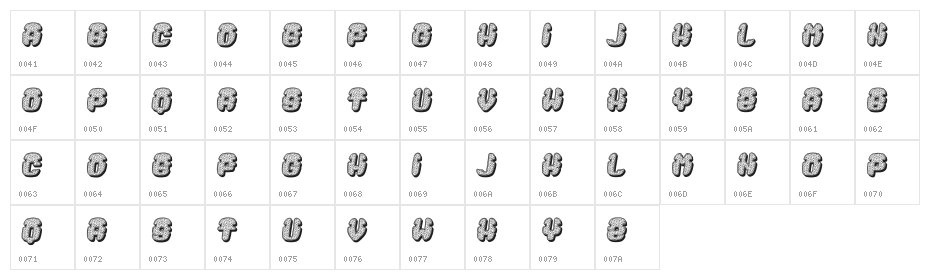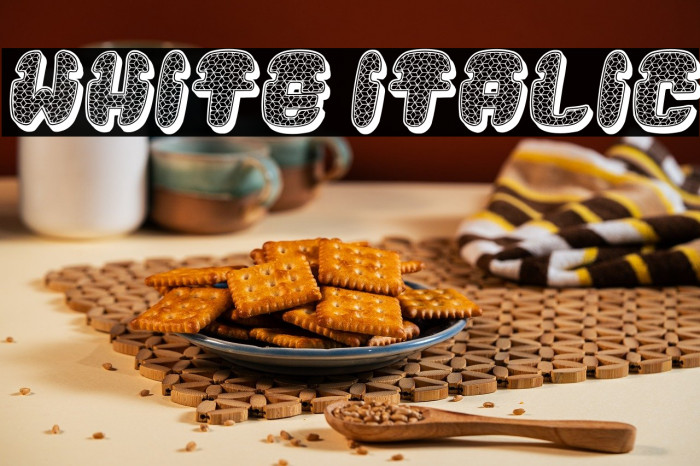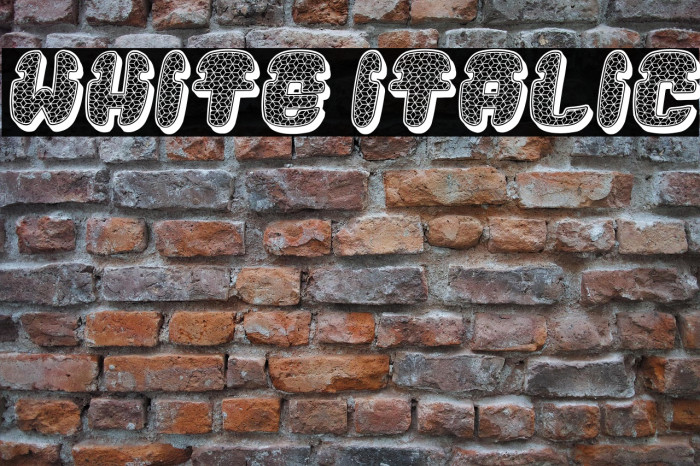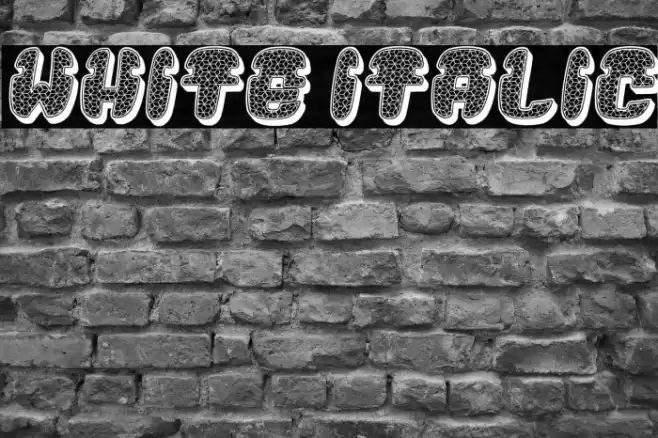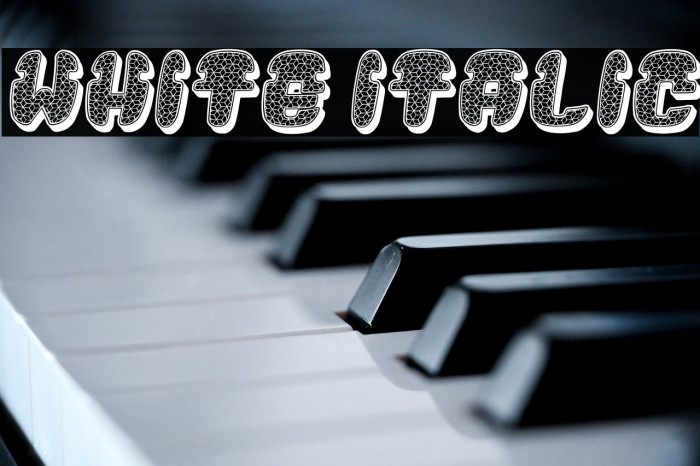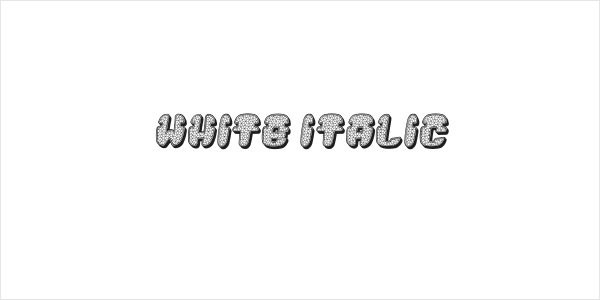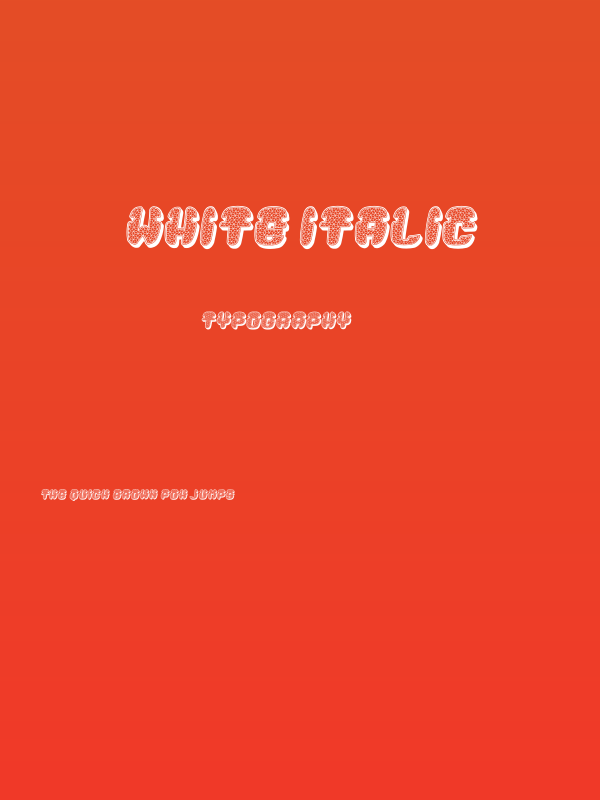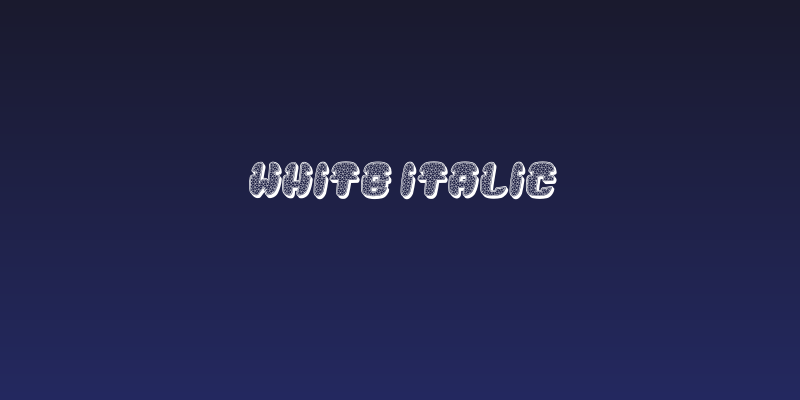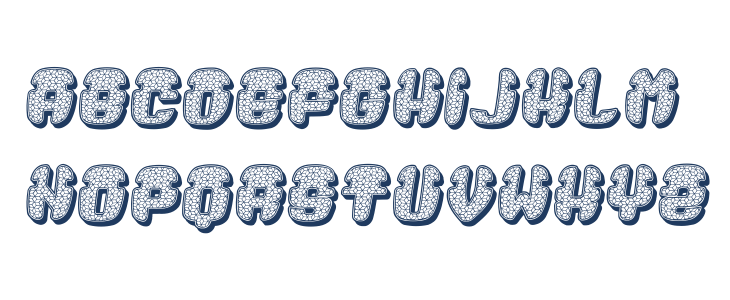
White Italic Font
White Italic Description
This font features a playful and bold design with a unique textured pattern inside each character. The letters are rounded and have a three-dimensional appearance, giving them a cartoonish and lively feel. The bold outlines enhance the visibility and make each character stand out. The font is consistent in style across uppercase and lowercase letters, as well as numbers and special characters. Its whimsical and decorative nature makes it suitable for creative projects that require a fun and engaging typeface.
| Proposed Projects | Ideal for children's books, comic strips, playful branding, and party invitations. |